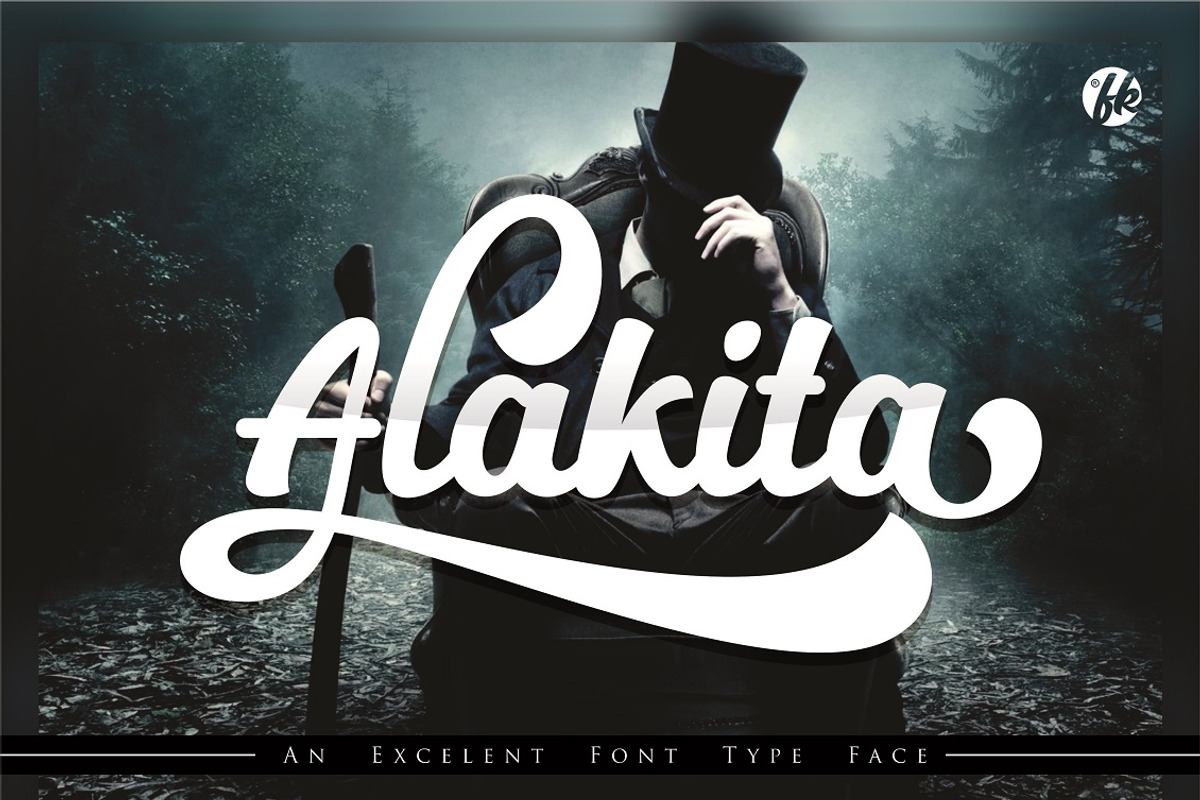
Alakita Font Free Download is a modern, elegant typeface designed for high-impact design projects. With its smooth lines and refined structure, this font is perfect for branding, editorial design, websites, product packaging, and any project that requires a sophisticated, contemporary aesthetic.
Its unique and balanced character set brings a touch of luxury and professionalism, making it ideal for high-end brands, creative studios, and artistic endeavors. Whether you’re designing a logo, flyer, or website, Alakita offers clarity and style in every letter. Alakita Font Free Download lets you explore its elegant design in personal projects before purchasing a commercial license.
Elevate your designs with Alakita — the modern font that speaks sophistication and elegance.